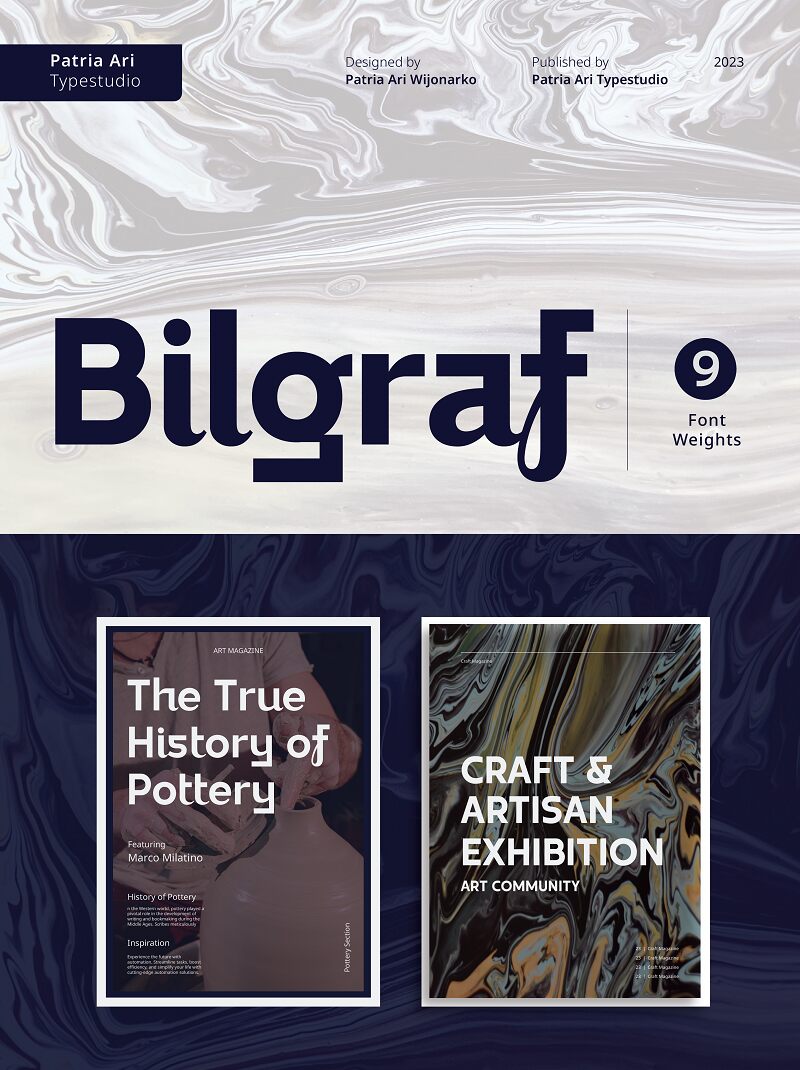
Bilgraf font by Patria Ari Typestudio is a sleek modern creation that stands tall on all fronts. The font’s contours are ambitious and innovative, with some parts conspicuously bordered and others entirely outlined. The combination of elegance and creativity cannot be denied or ignored within this professional display, which also reflects occasional playful elements.